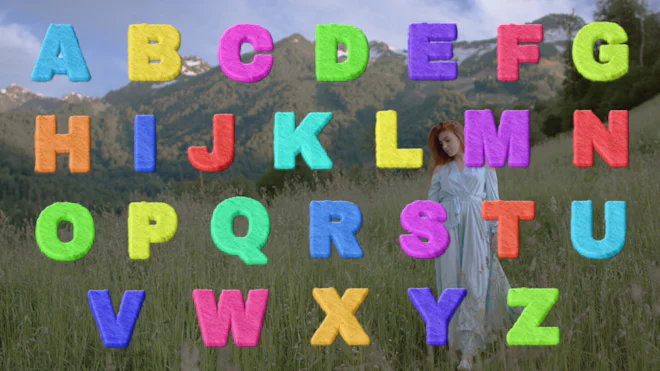
This stock motion graphics video pack includes 52 different clips of colorful animated letters, numbers, and special symbols on a transparent alpha channel.